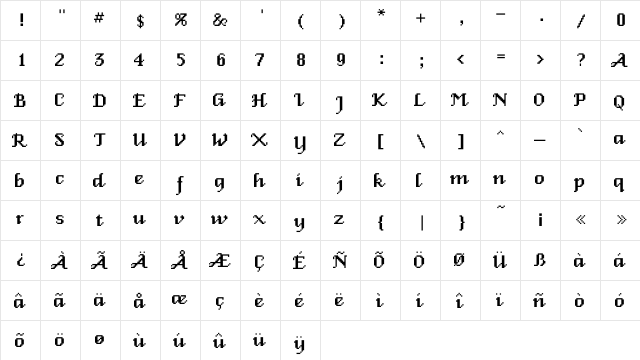
Venice Classic Medium
Design Context for Venice Classic Typeface
Venice Classic has the warm character of retro typography — evoking diners, record sleeves, and the golden age of print advertising.
Font Pairing: Combine Venice Classic with a simple slab or neutral sans — period-accurate companions reinforce the vintage feel without competing for attention.
Pro Tip: Use Venice Classic for headlines and pull quotes rather than body copy — its personality is best appreciated in short, focused bursts.